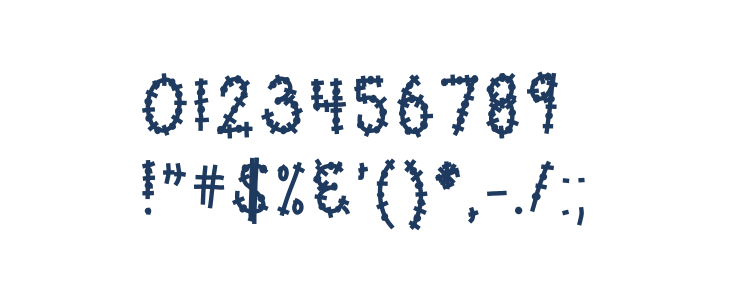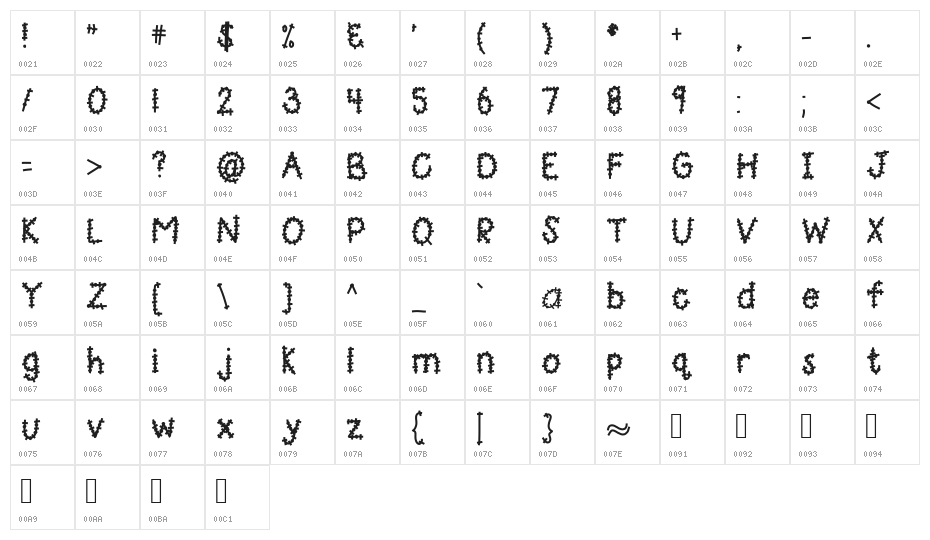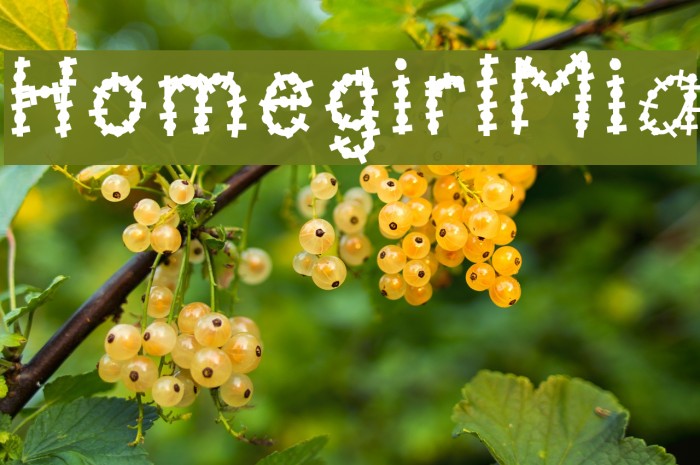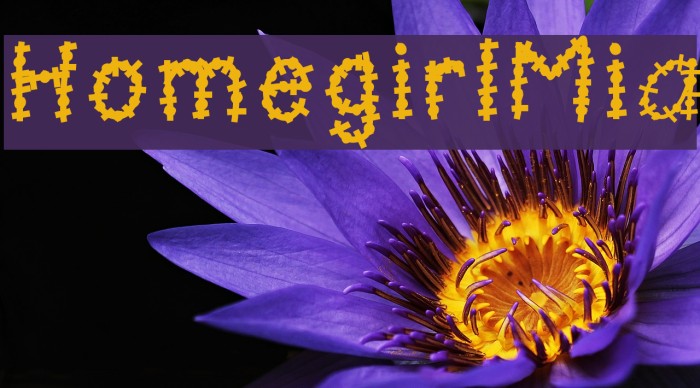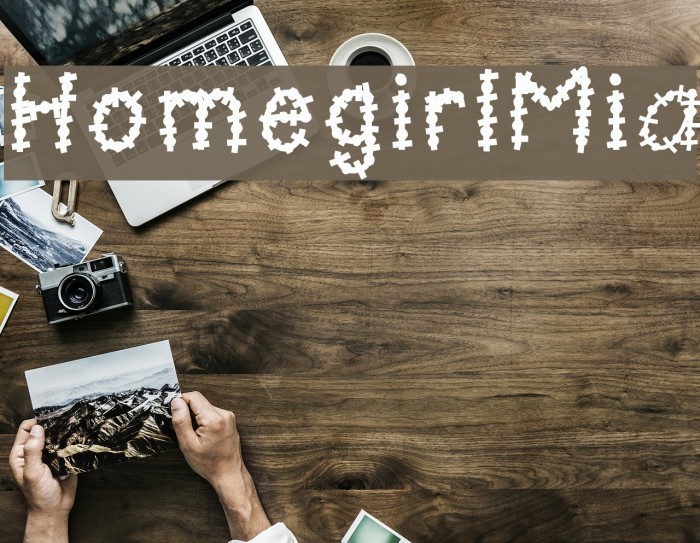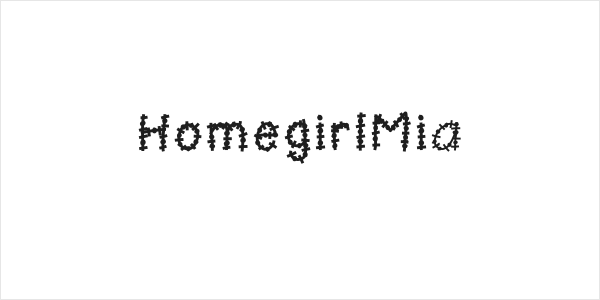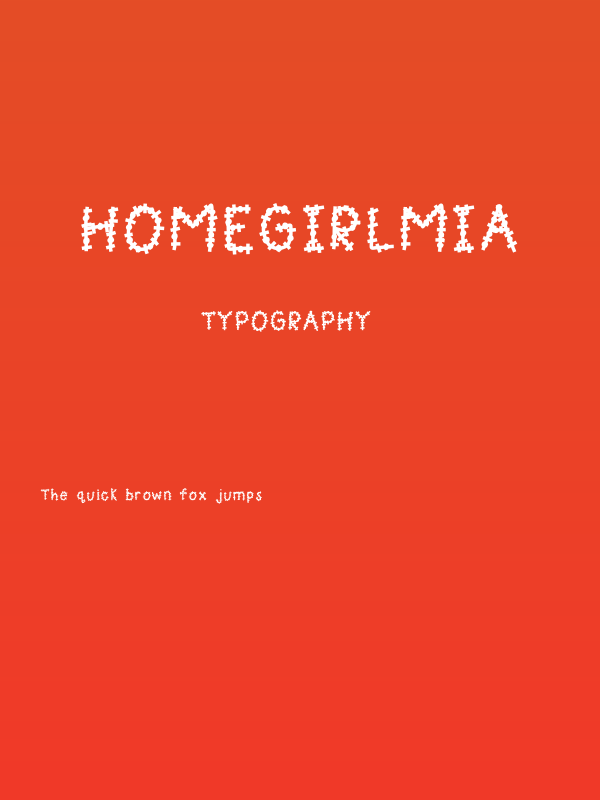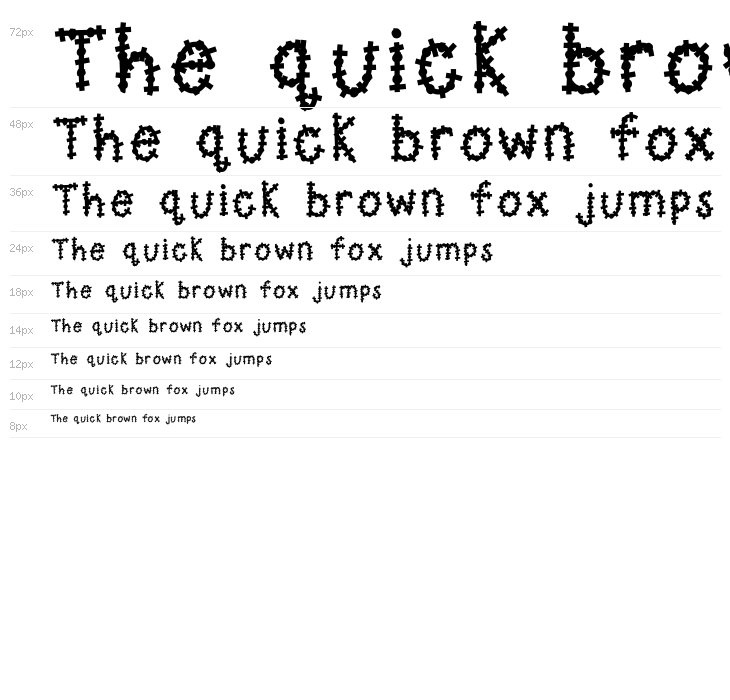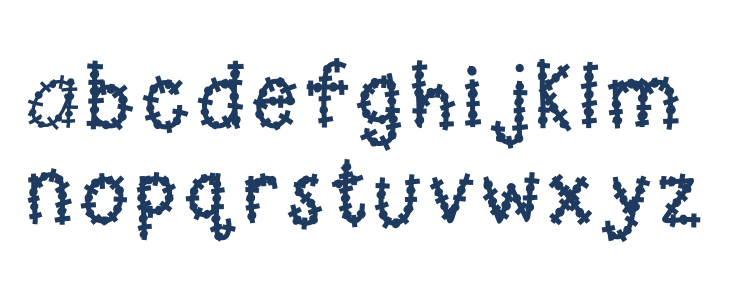
HomegirlMia Font
HomegirlMia Description
This font features a unique, playful design with a distinctive pattern resembling small crosses or stitches forming each character. The letters are bold and have a decorative, hand-crafted appearance, making them stand out with a textured look. The uppercase and lowercase letters maintain a consistent style, while the numbers and special characters follow the same thematic design. The font's artistic flair gives it a quirky and creative vibe, suitable for projects that require a touch of whimsy and individuality.
Proposed ProjectsIdeal for children's books, creative posters, playful branding, and artistic invitations.